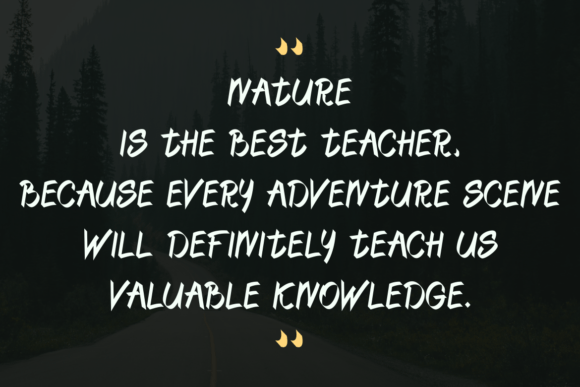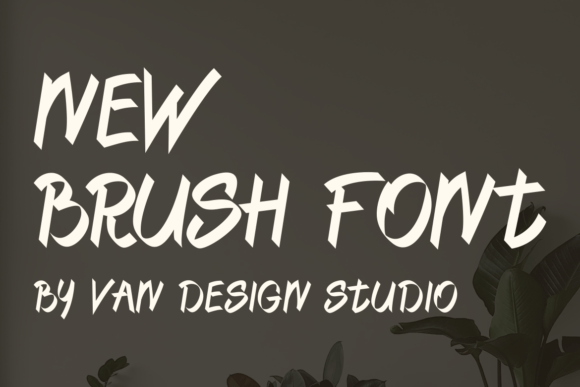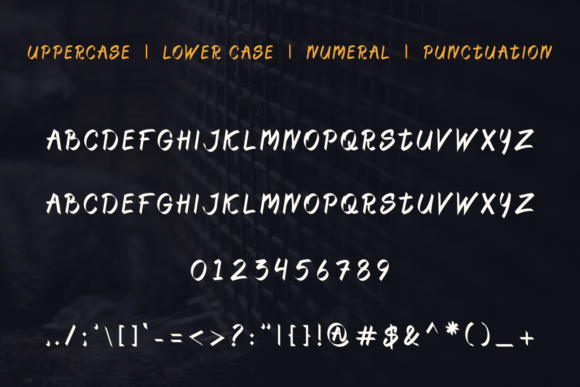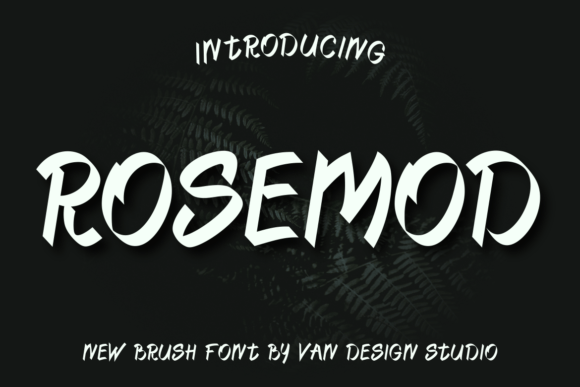
Introduction to Rosemod Font
Rosemod is an incredibly unique and styish script font.
It is perfect for use on displays, labeling, clothing, movie screens, posters, movie titles, gigs, album covers, logos, and much more .
Why Choose Rosemod Font?
Rosemod Font offers exceptional quality and versatility, making it a valuable addition to your design toolkit. Whether you’re creating for personal projects or commercial use, Rosemod Font delivers professional results.